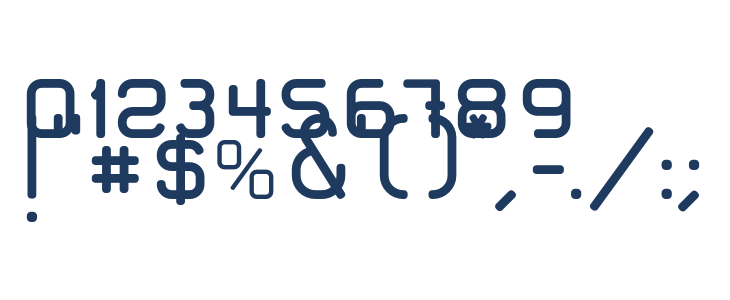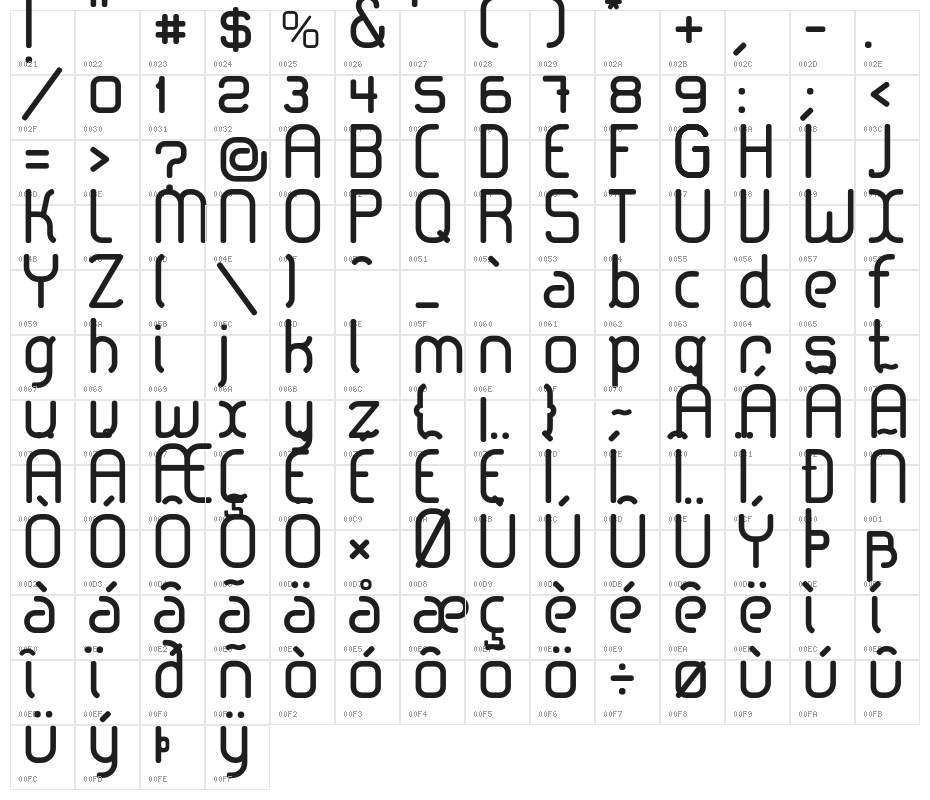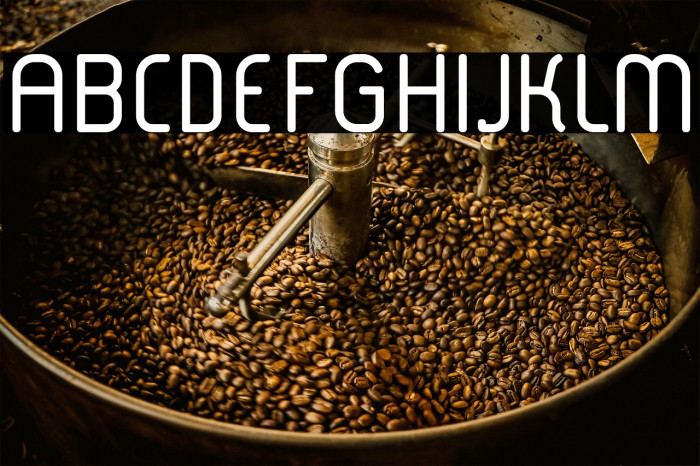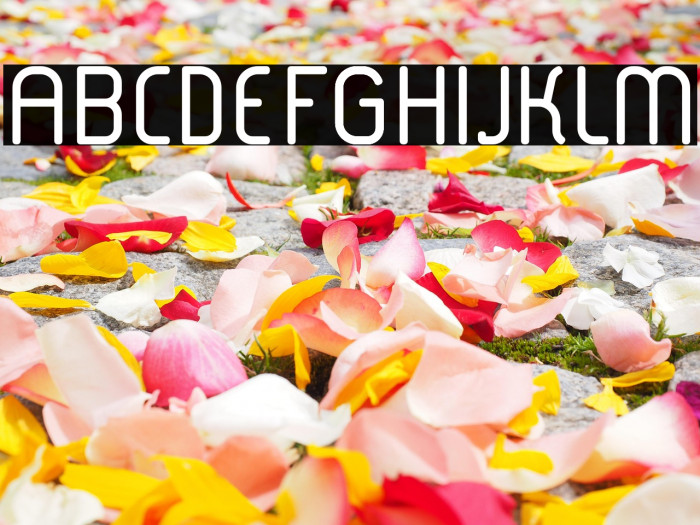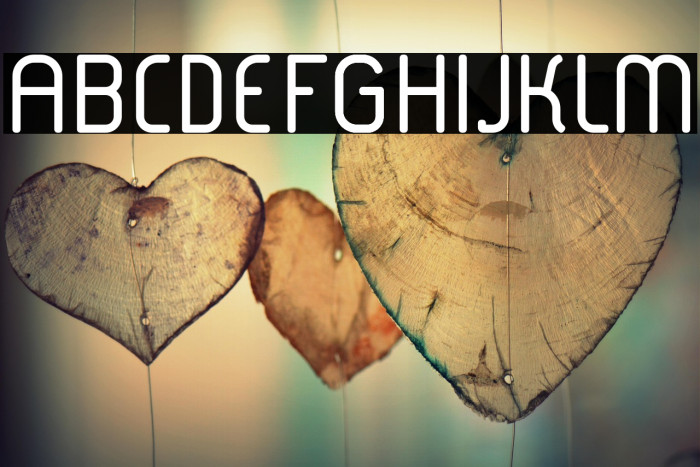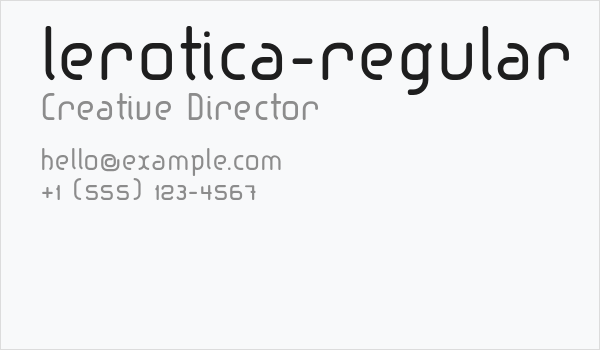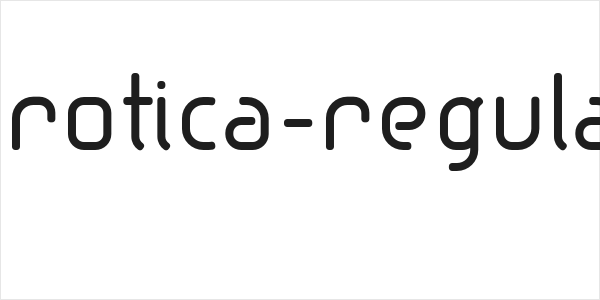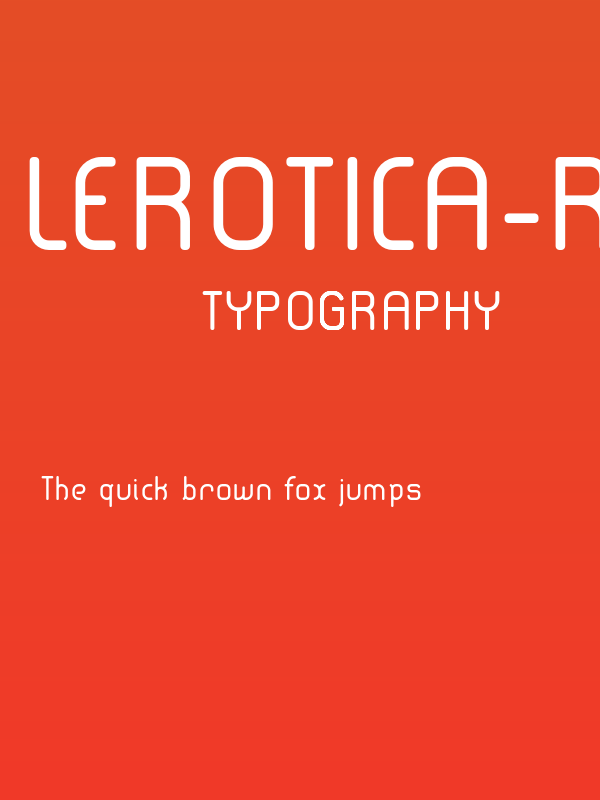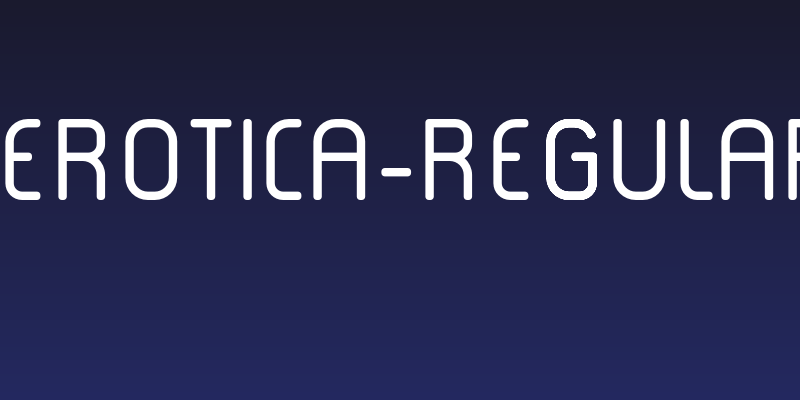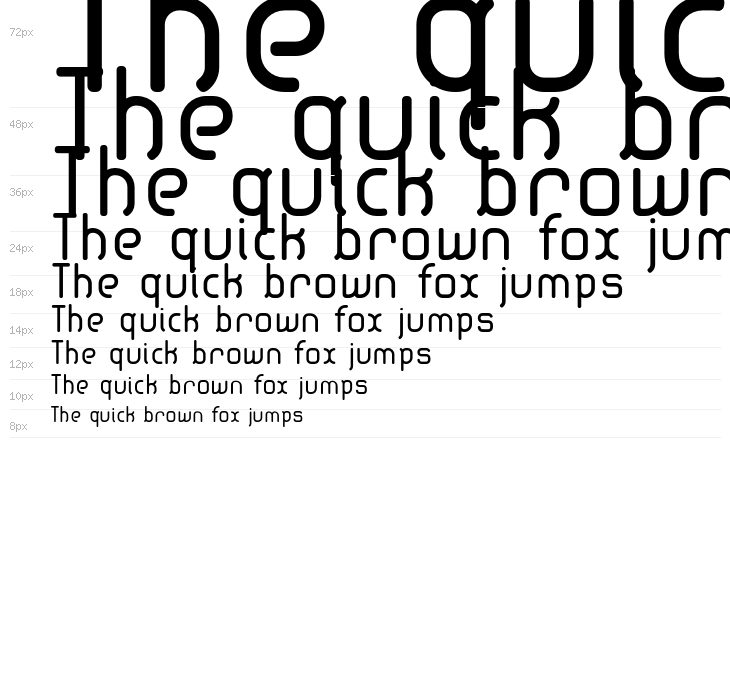
lerotica-regular Font
lerotica-regular Description
This font features a modern, geometric design with rounded edges and a clean, minimalist aesthetic. The characters are uniform in width, creating a harmonious and balanced appearance. The uppercase and lowercase letters maintain a consistent style, with smooth curves and a slightly condensed form. The numerals and special characters are designed to match the overall look, ensuring readability and visual appeal. The font's simplicity and clarity make it suitable for various applications, from digital interfaces to print media.
| Proposed Projects | Ideal for digital interfaces, branding, advertising, and print media where a clean and modern look is desired. |